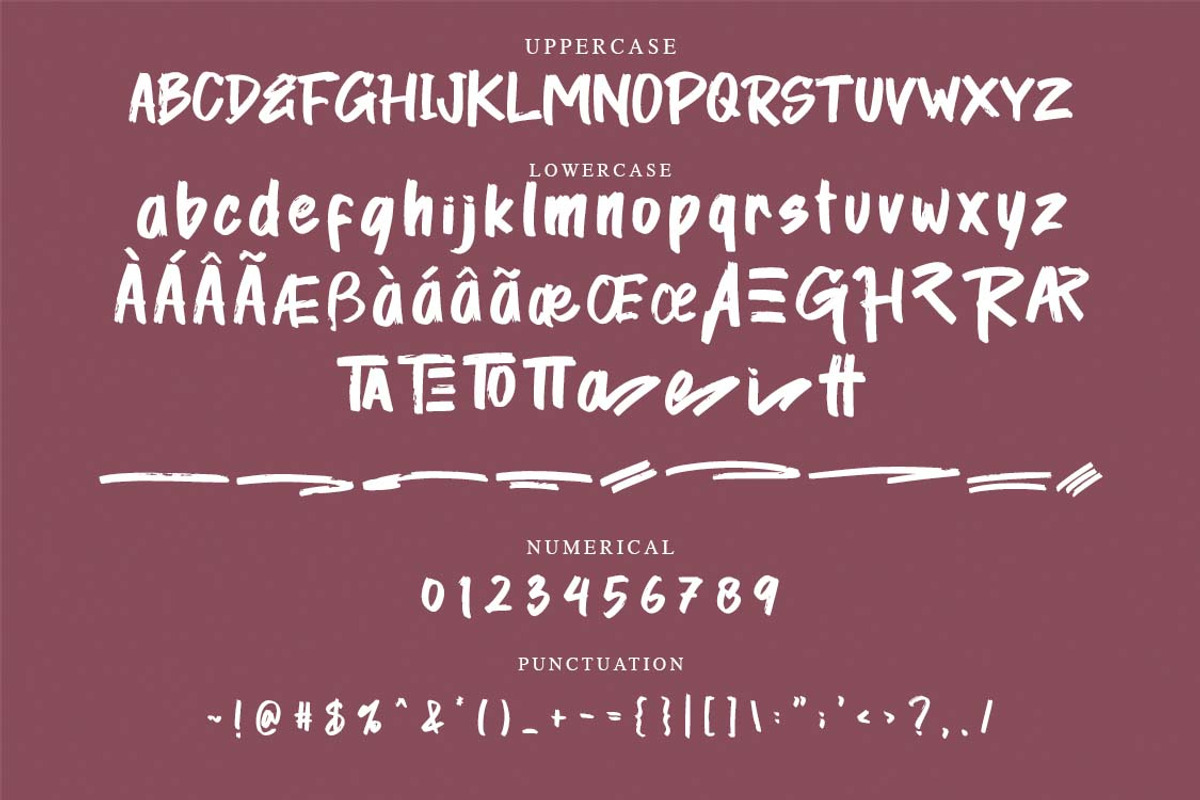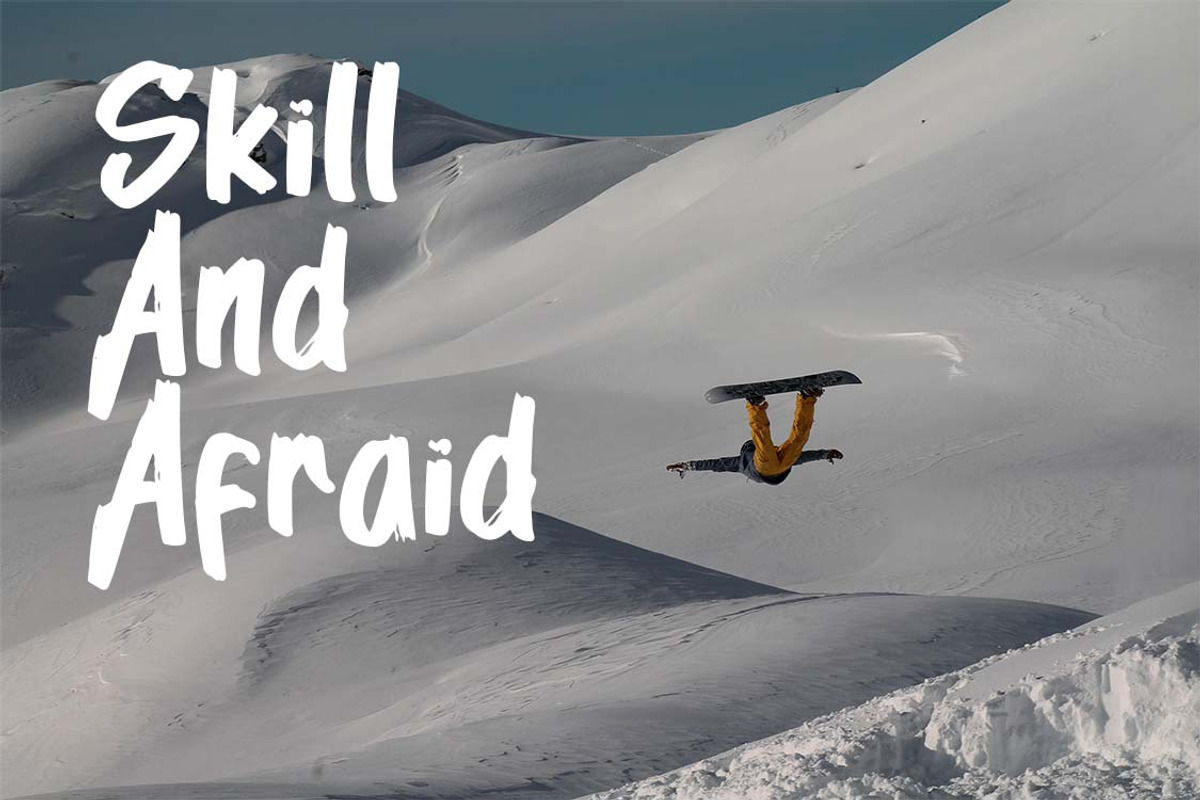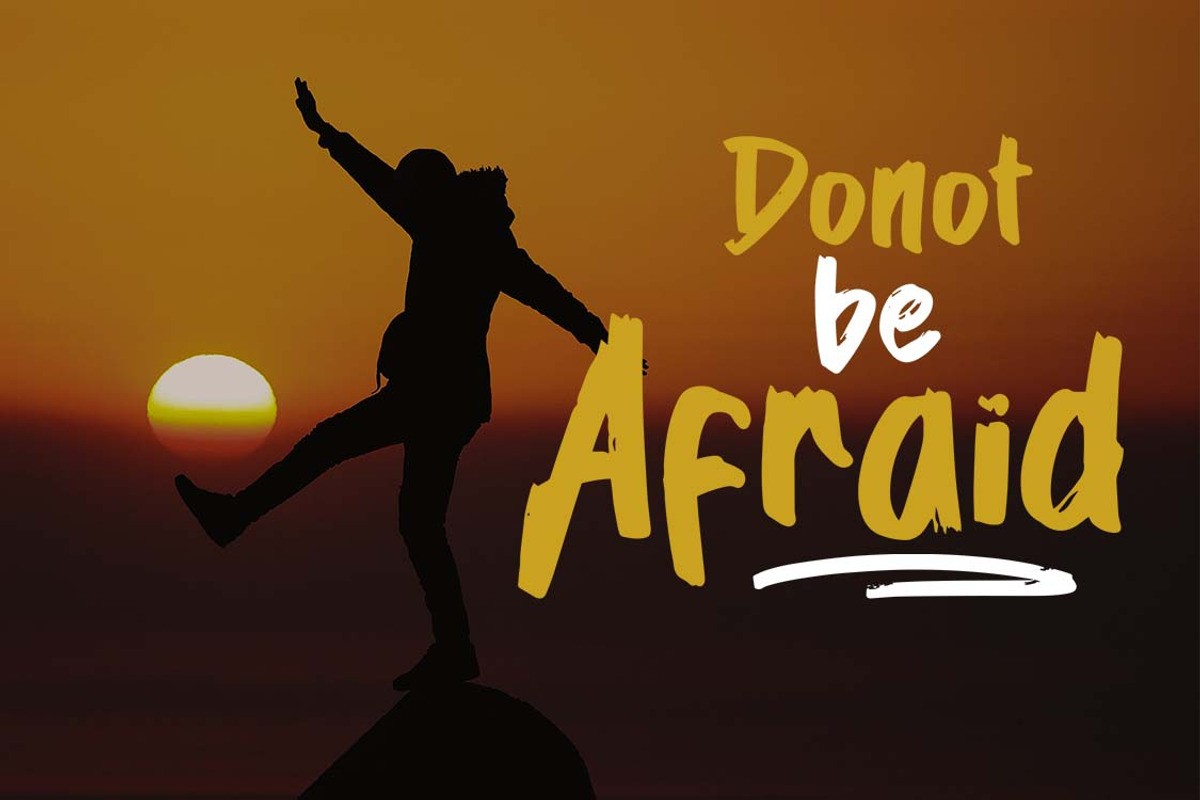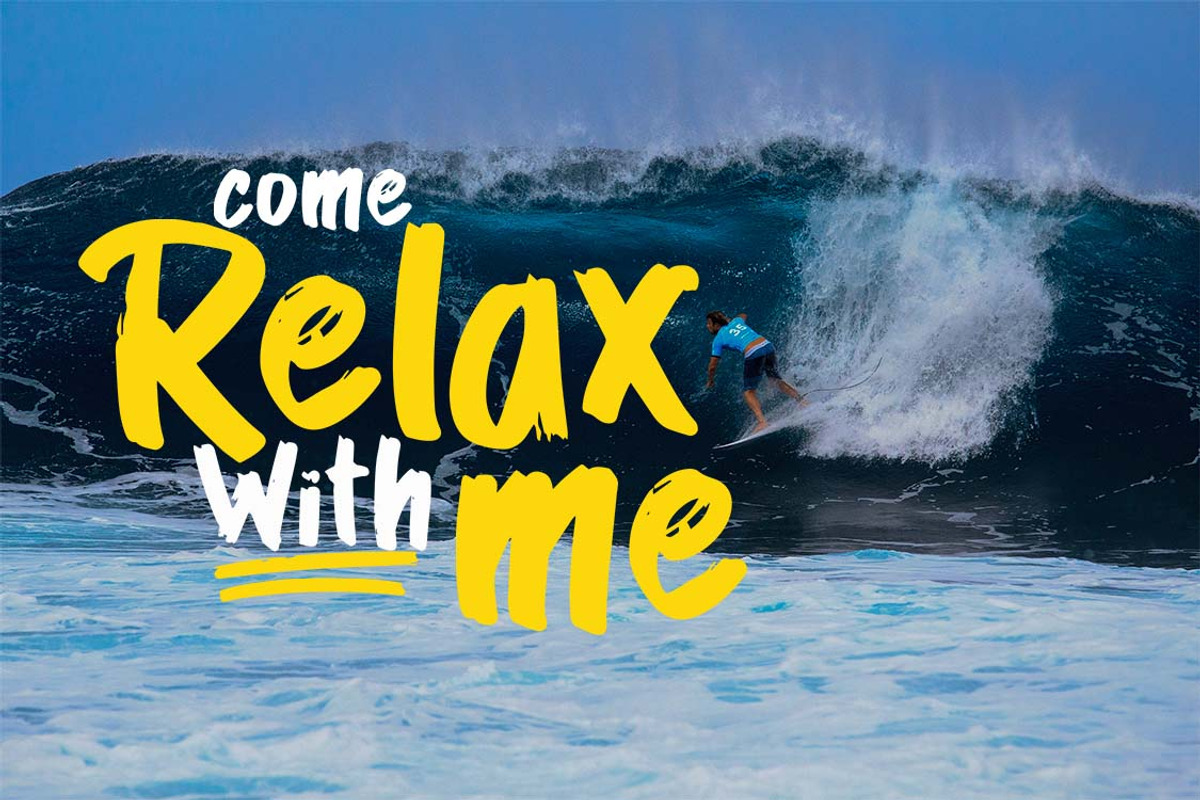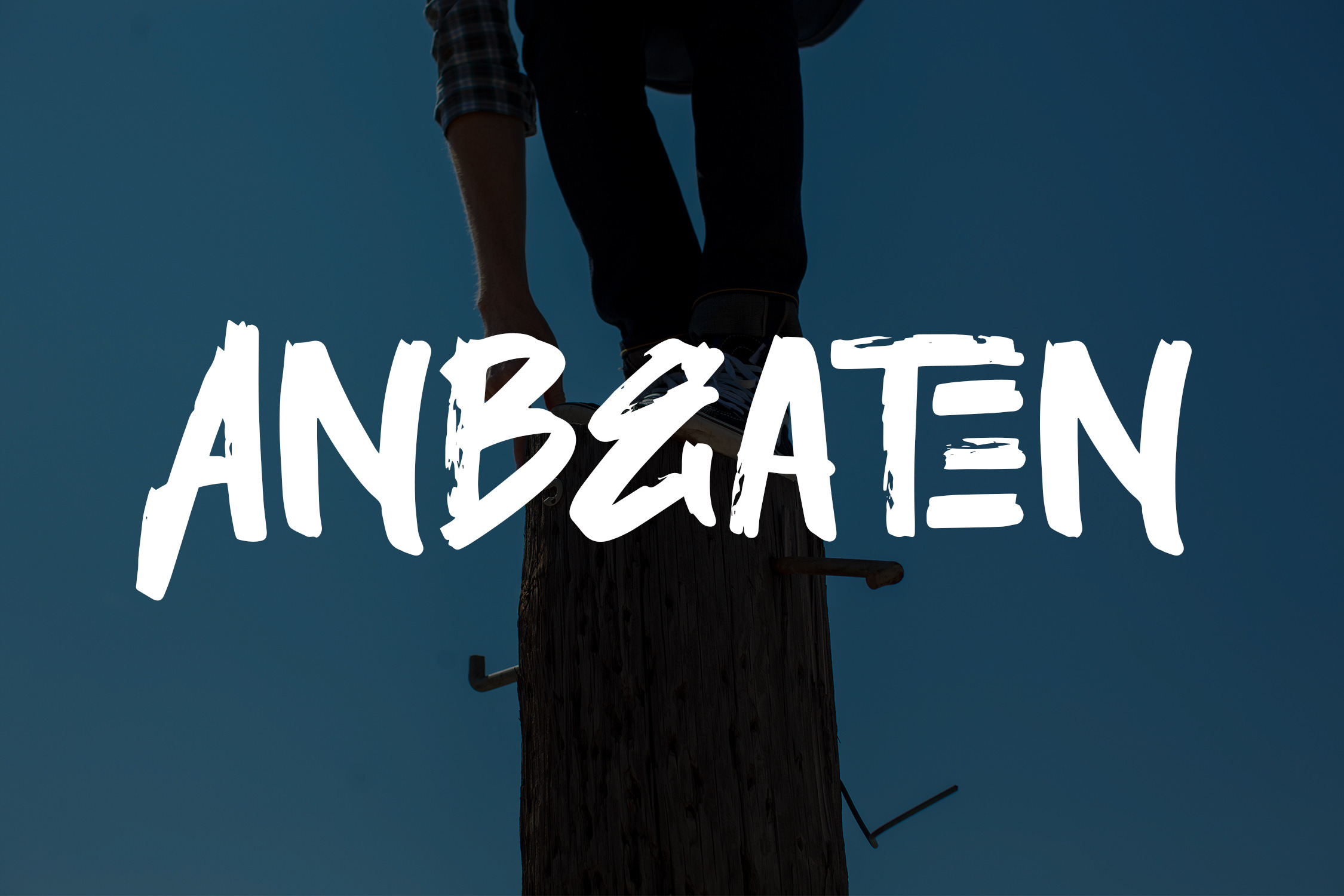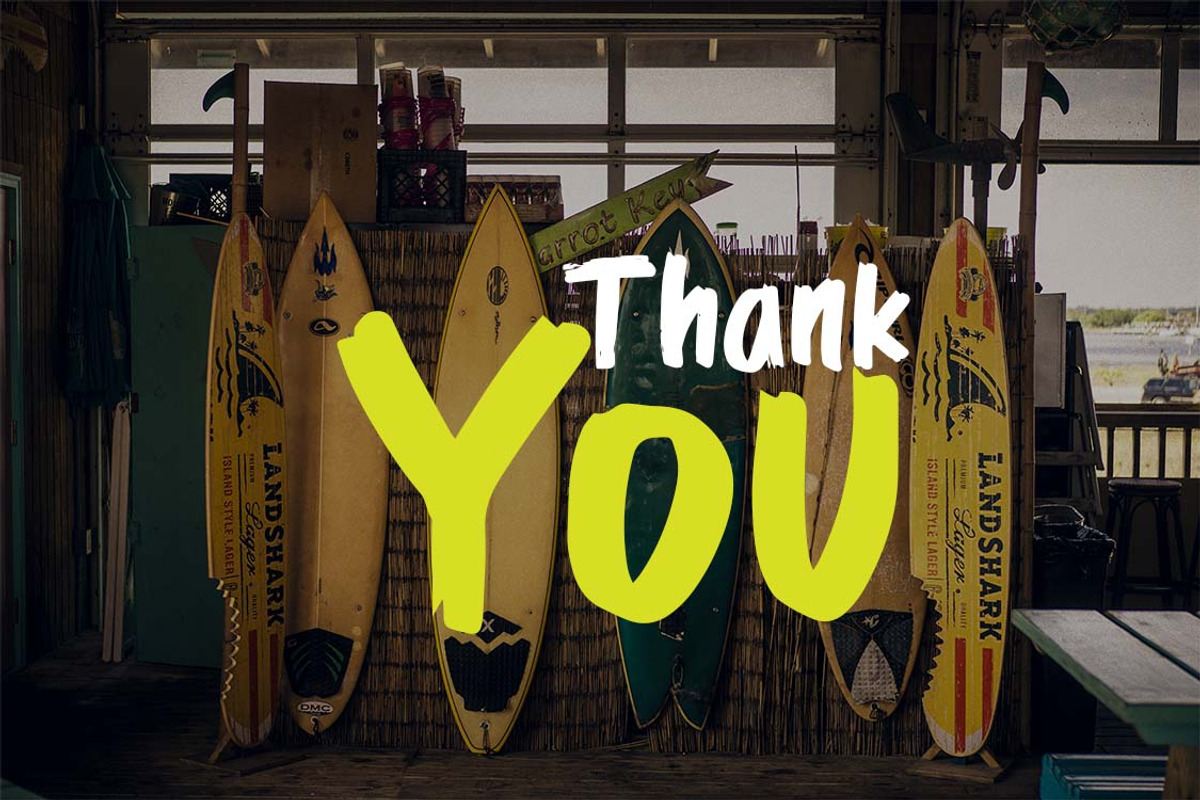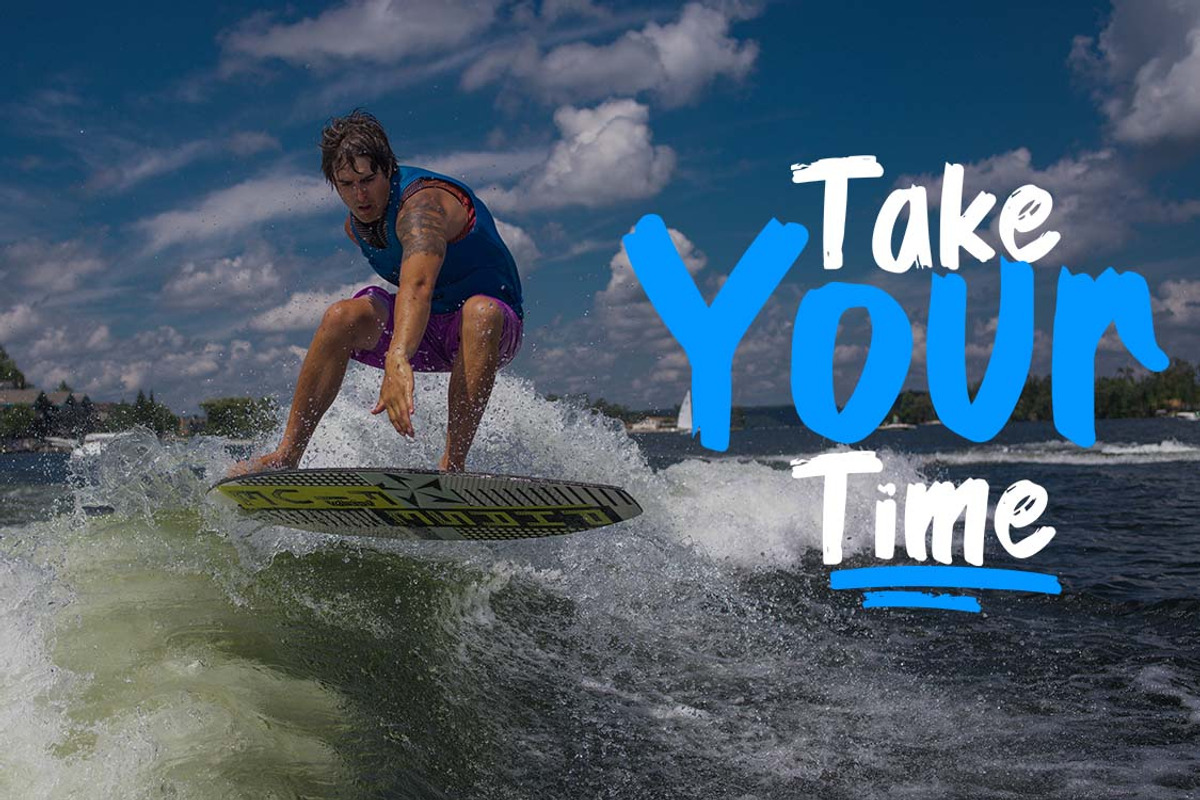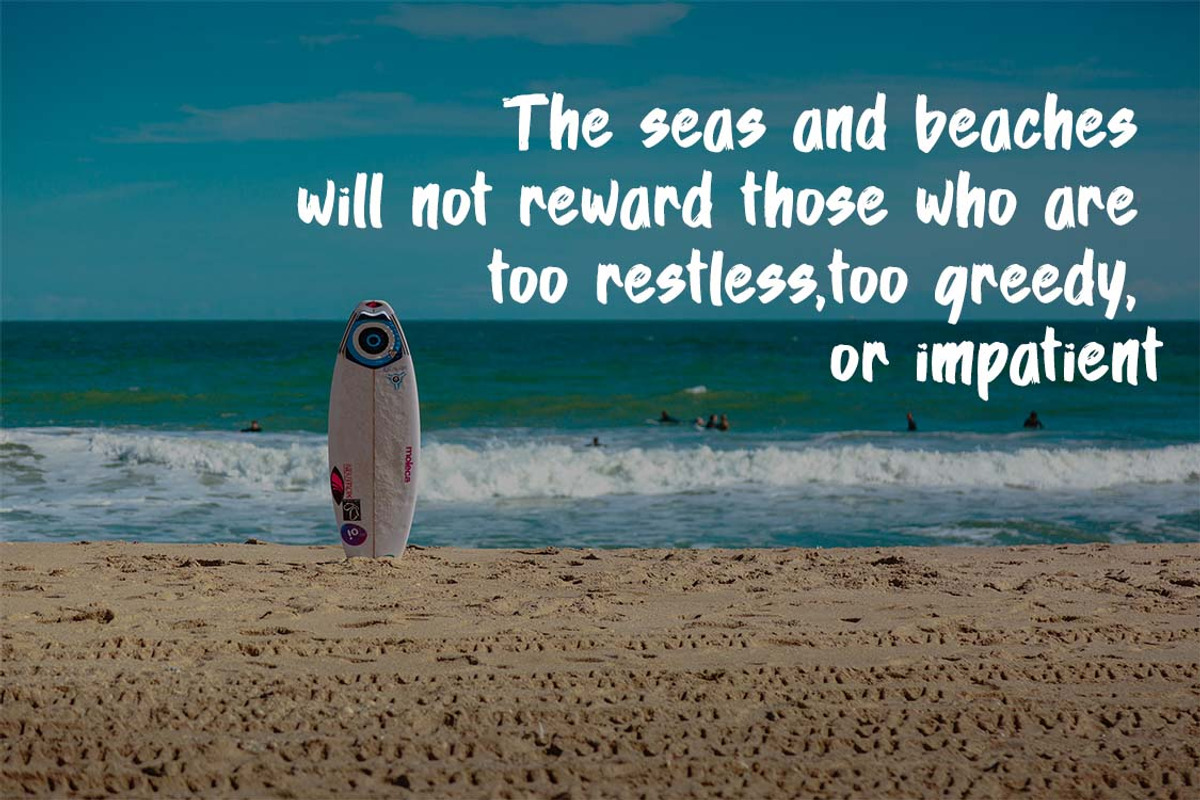
ANBEATEN - Handwritten Brush Font
ANBEATEN is a beautiful handwritten font with brush style. Is a font style that is made with handwritten scratches shapes font characters are very beautiful. Can be applied to support the graphic appearance of the product to be more attractive and unique. This font is very nice for designing magazine previews and covers design, logo designs, shirt designs, and other graphic needs.